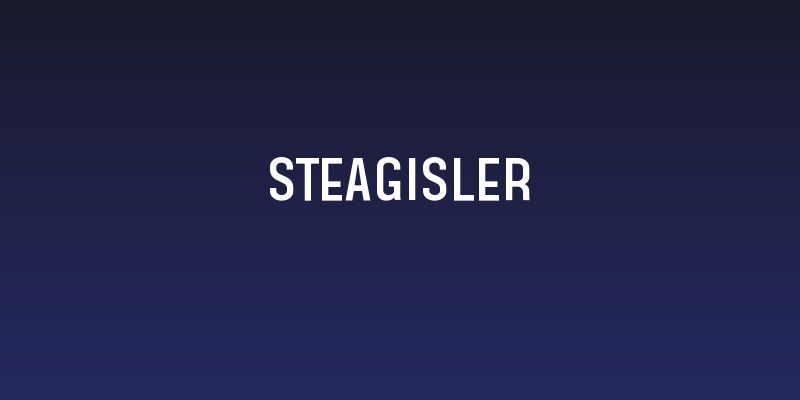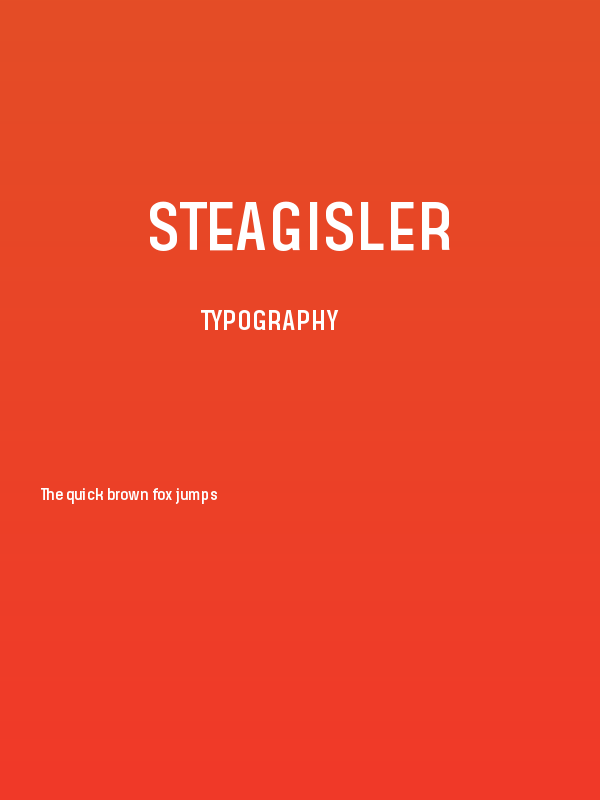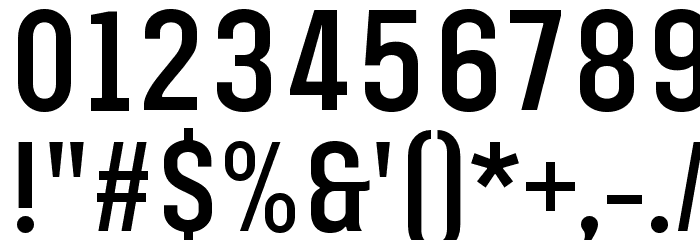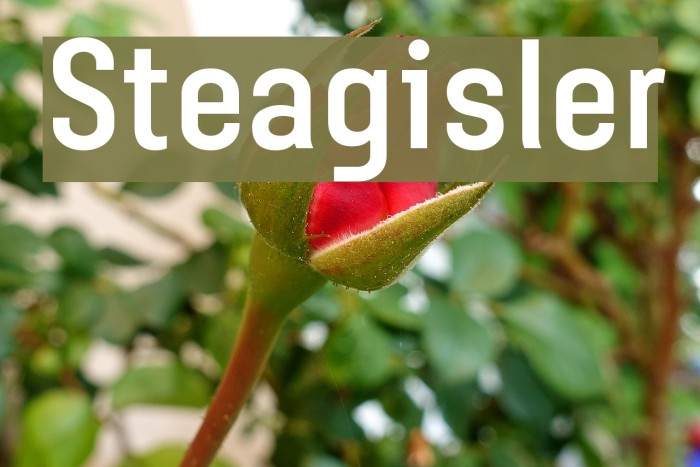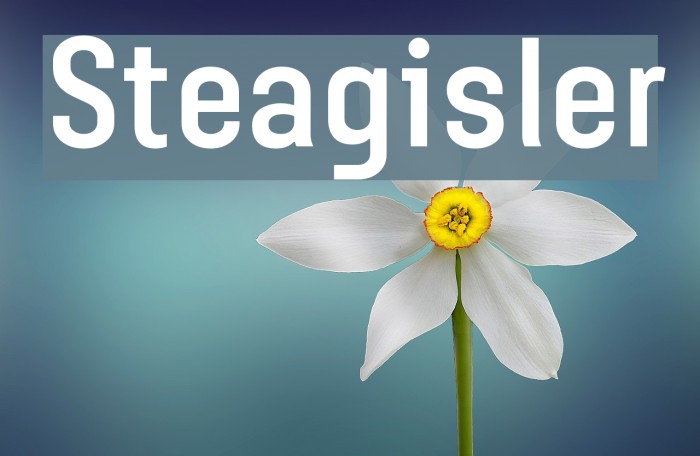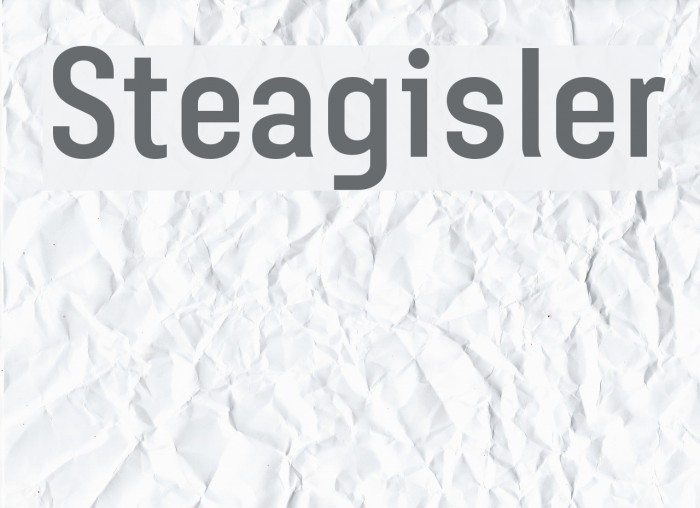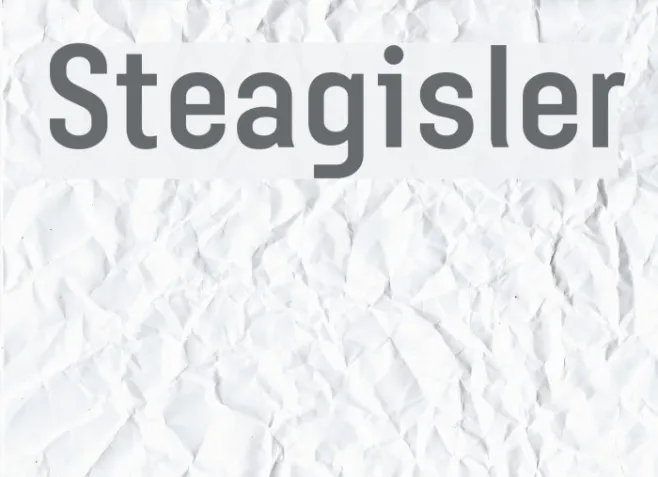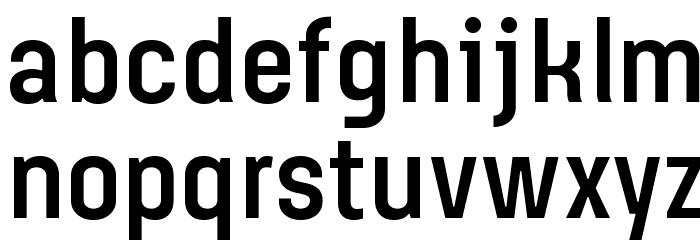
Steagisler Font
Steagisler Description
This font features a clean, modern sans-serif style with uniform stroke widths, providing a sleek and professional appearance. The characters are well-proportioned, offering excellent readability across both uppercase and lowercase letters. The numerals are distinct and balanced, making them suitable for various applications. Special characters are clearly defined, enhancing the font's versatility. The overall design is straightforward yet impactful, making it a great choice for contemporary design projects.
| Proposed Projects | Ideal for branding, web design, advertising, and editorial projects where clarity and modernity are key. |